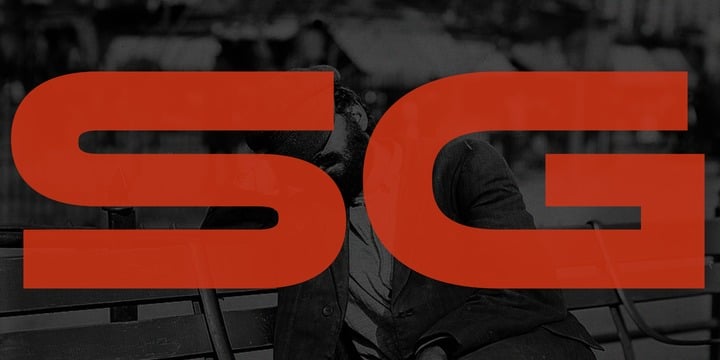
The concept of Stereo Gothic Font is very simple. Wide and Legible, No decorative, just simple. The variety of weights make your design more flexible.
- Designer: Ryoichi Tsunekawa